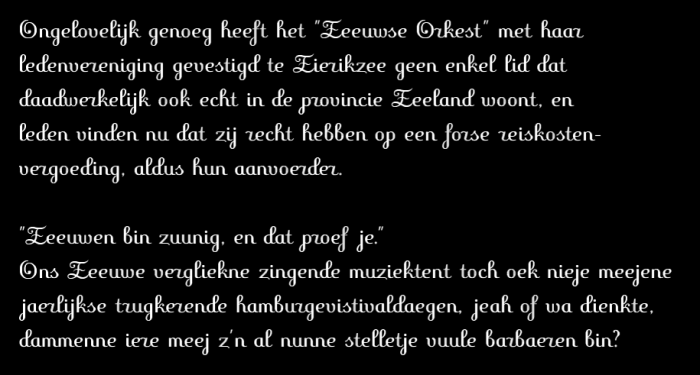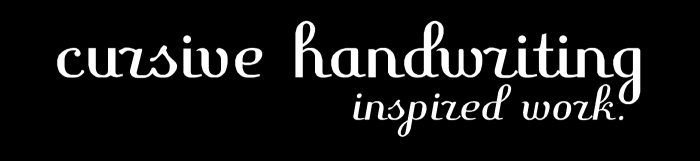
A cursive handwriting inspired style work.
Its a medium size faux-Bezier (fake curve) style approach with somewhat rough shaped outlines. I am having a serious hard time comming up with a uppercase set. Publishing it in this early stage I kind of hope to get some suggestions that might refreh my perspective on it.
Therefor I am curious about what you guys think so far...
[Update Info] Oh yeah, I finally managed to build myself a single new additional uppercase initial character, it now includes a "Z" as well.
The image above was written in two versions of the Dutch language.
The top part was just written in the Standard Dutch language.
The bottom part was written in a dialect called 'Zeeuws'. It is used mostly by farmers and small village communities in the south-western part of The Netherlands, in the province of 'Zeeland'. Where I live myself as well. The Dialect is essentially a old slang, a mainly spoken one. It slowly vanishes from existence, and is only still used by mainly elders or a hand full of true die-hard's.
But to somewhat modern person from my country it sounds so crazy funny when a person is speaking this dialect, and it is hard to imagine taking that person truly serious. lol
So don't bother questioning yourself what the heck that sample is saying, only a Dutch would really understand it.
It simply gave me a perfect excuse to proudly demonstrate my new uppercase initial.
Really great progression here, Sed. I'm impressed by the sample sizes. That lowercase 'r' is so edgy and radical. Almost looks like a reverse 'r' but it doesn't really affect legibility. Looking forward to that uppercase. And respect goes out to you for honoring traditions.
also this is looking quite good